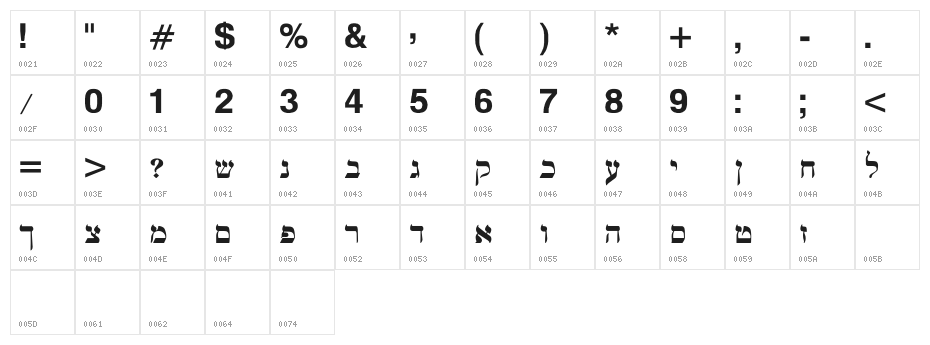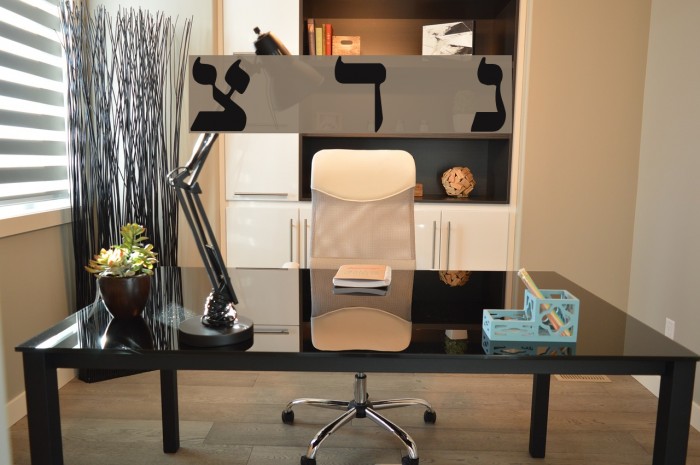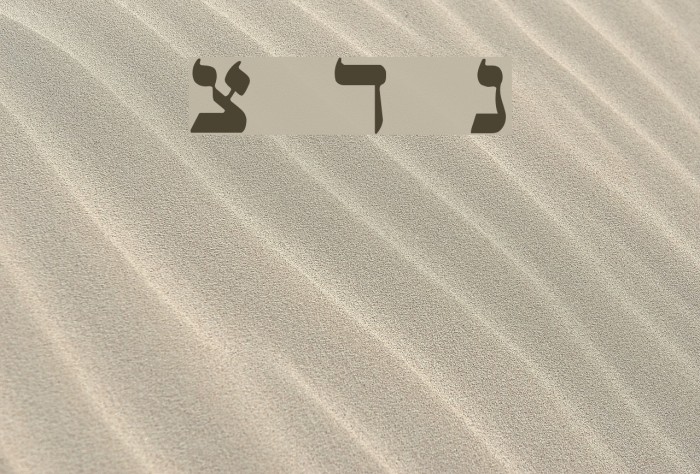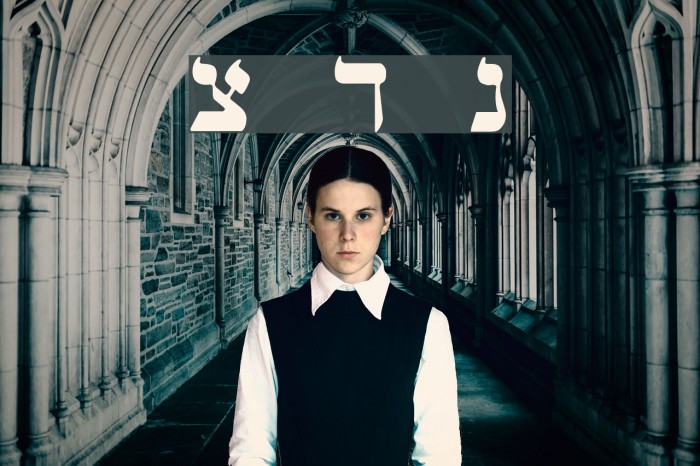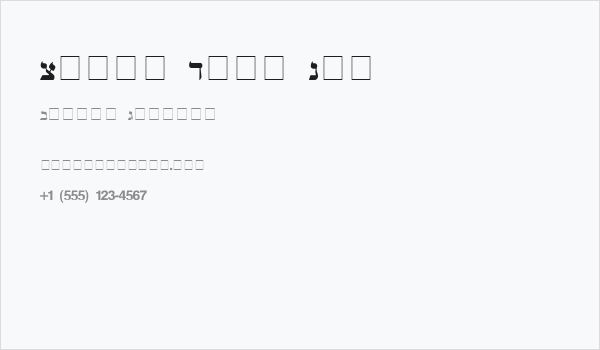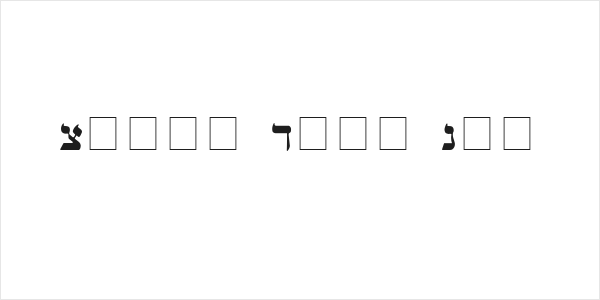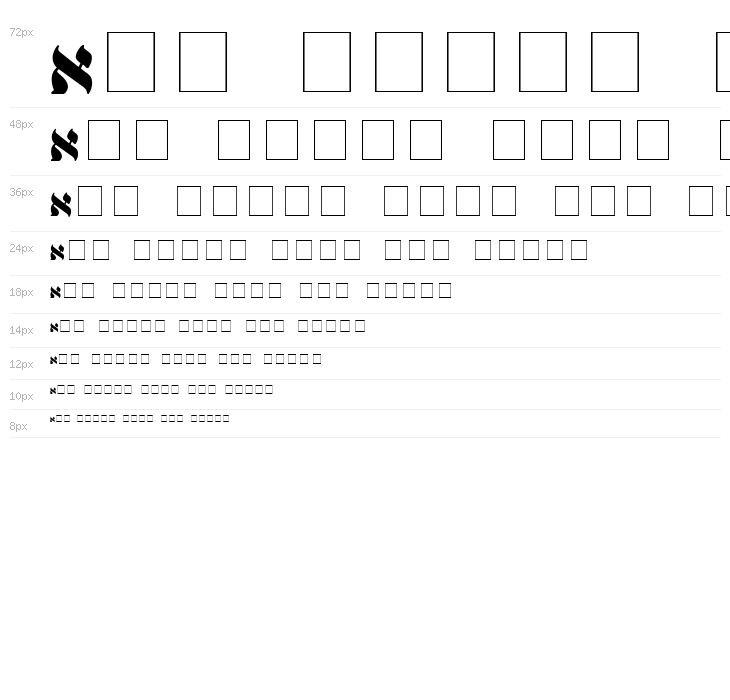
Mendel Siddur Bold Font
Mendel Siddur Bold Description
This font features bold, striking characters with a strong presence, ideal for making a statement. The numerals are robust and clear, ensuring readability even at smaller sizes. The special characters are well-defined, maintaining the font's bold aesthetic. Its overall design is modern yet timeless, suitable for various applications where impact is needed. The font's weight and width contribute to its powerful appearance, making it a versatile choice for both digital and print media.
| Proposed Projects | Ideal for headlines, posters, branding, and advertising where a bold statement is required. |